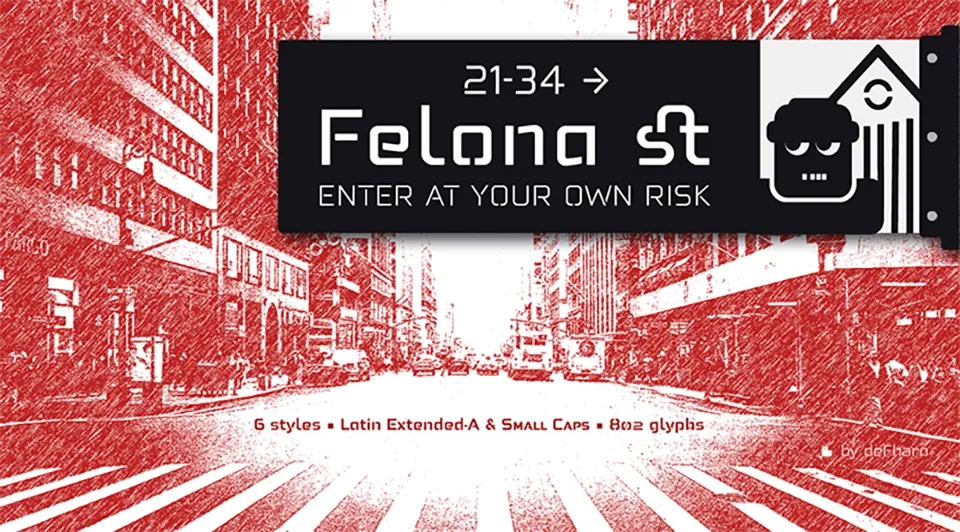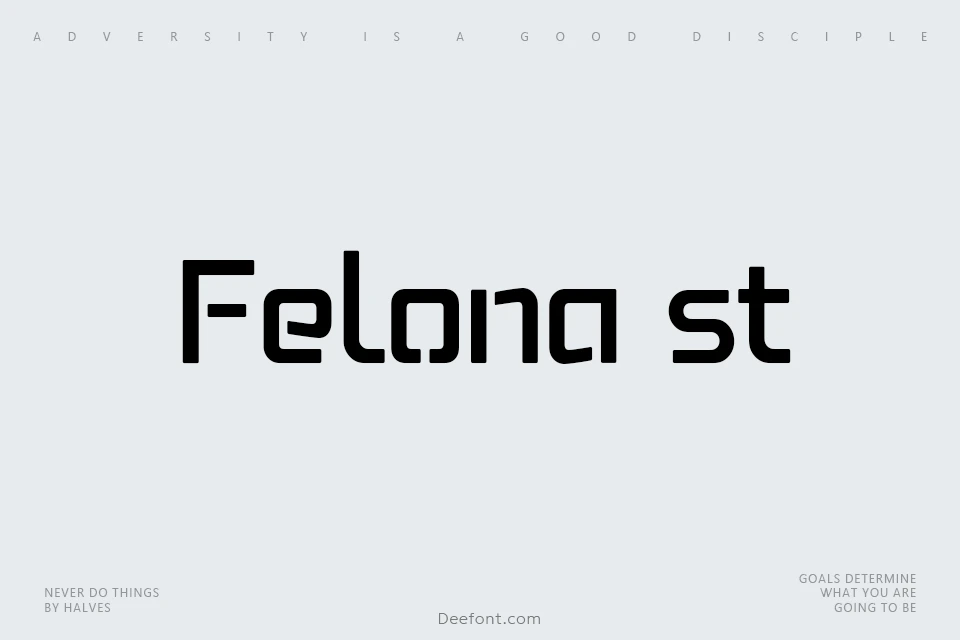
Felona st Font
Felona st Font is a Neo Stencil advanced typography featuring 6 styles, including small letters (Small Caps). This versatile font family offers a large character set with 802 glyphs, supporting Latin Extended-A for broad language coverage. Its minimalist, rounded techno-stencil design ensures high readability at any size, making it ideal for print and screen applications. Felona st is perfect for use in graphic design, publishing, advertising, posters, video games, film titles, logos, and more. The font also includes unique features such as three alternate sets of the letter “A” and symbols for Bitcoin and other cryptocurrencies. The demo version is free for personal use, while commercial licenses are available for broader applications.